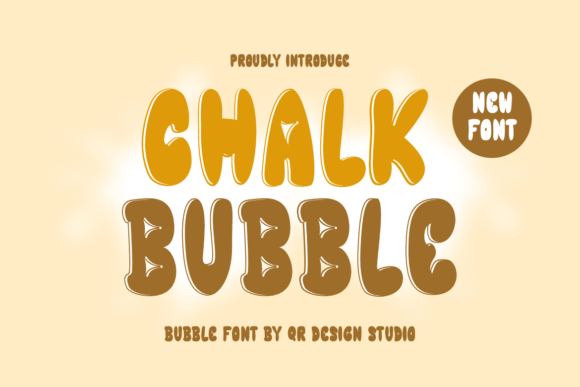
Introducing Chalk Bubble Font, the ultimate choice for those seeking the best font for aesthetic lyrics! Created by qrdesignstd, this adorable and unique display font is sure to captivate your heart and elevate your designs to a whole new level.
With its charming and playful appearance, Chalk Bubble Font brings a sense of joy and whimsy to any creative project. Its quirky style is perfect for adding a touch of personality to your artwork, invitations, posters, social media posts, and more.
Imagine your lyrics floating on the page, surrounded by delightful bubbles that dance and twirl. Chalk Bubble Font creates an enchanting atmosphere, making your words burst with life and emotion. Let your imagination run wild as you explore the endless possibilities this font offers.
What sets Chalk Bubble Font apart is its ability to make your designs truly stand out. Don't settle for ordinary fonts that blend in with the crowd. Instead, choose this beautiful display font to make a bold statement and leave a lasting impression on your audience.
But Chalk Bubble Font is not just about aesthetics; it's also about functionality. Its readability and clarity ensure that your message is conveyed effortlessly, even in larger sizes. Whether you're designing a logo, a book cover, or a website, this font guarantees legibility without compromising on style.